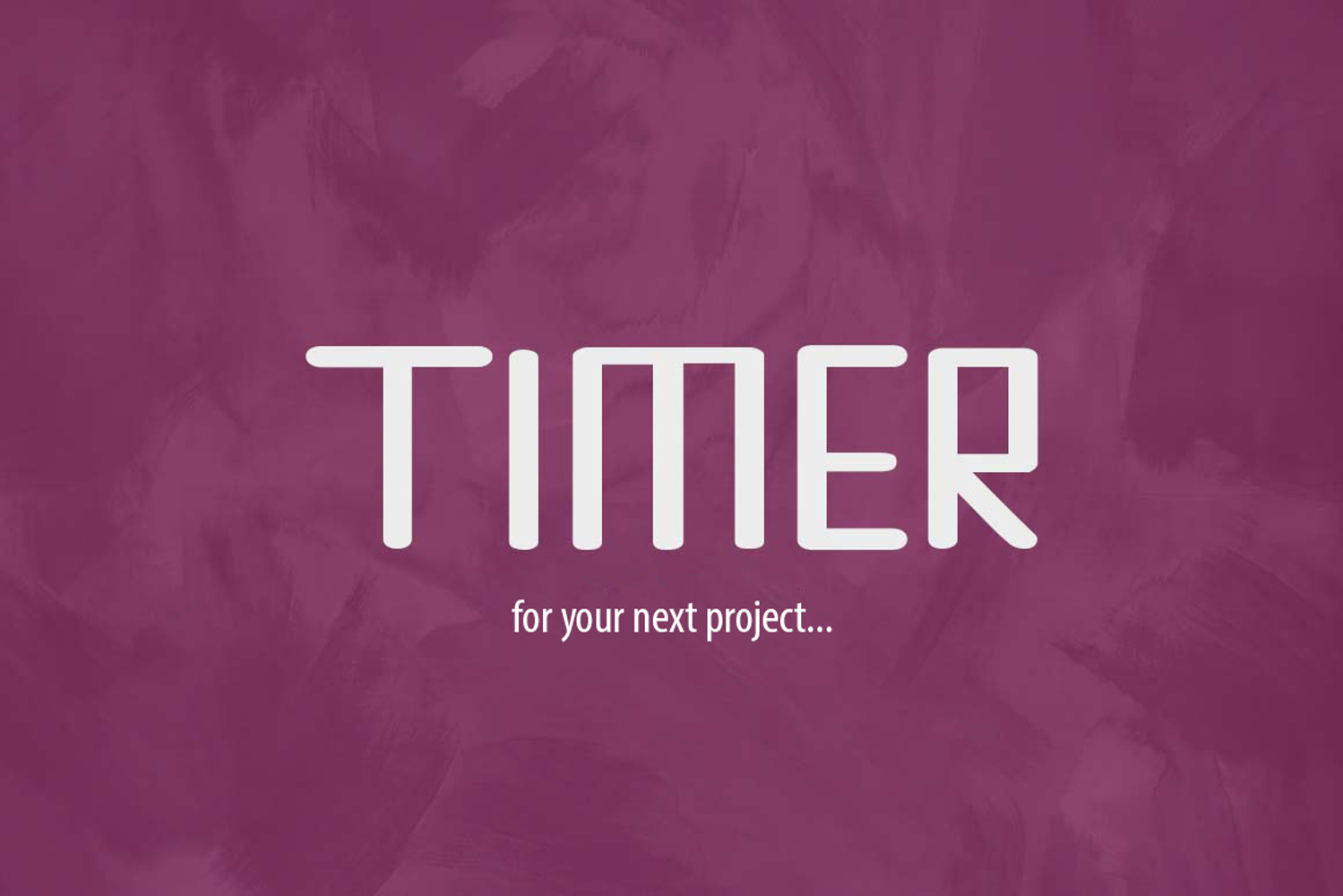
Timer Serif Modern Geometric Display Font
Sleek modern font for tech branding and digital designs.
Get the professional edge with Timer Serif. This -use font is a value-driven choice for creators looking for a bold, modern typeface for digital products, apparel, and branding kits.
Elevate your creative projects with Timer Serif, a high-impact, professional-grade typeface designed for the modern digital landscape. Whether you are building a brand from scratch or scaling your e-commerce shop, this font provides the perfect balance of authority and contemporary style.
Timer Font Information
• Timer Font is a stylish hand made Font, Available in
• Timer Time – Timer Regular
• Timer Carve – Timer Bold
• 4 in one version with all special characters.
Suitable for…
• Magazine design
• Cover design
• Flyer design
• Display font
• Web site Slider Font
• Hade line font
• Regular font
• Product name
• Etc.
• It’s useful for any Design project. card, e-card, Good for Logos & Headlines, Poster, Tag design, Newspaper & Magazine Ad Design and many more. True type and Open type font files